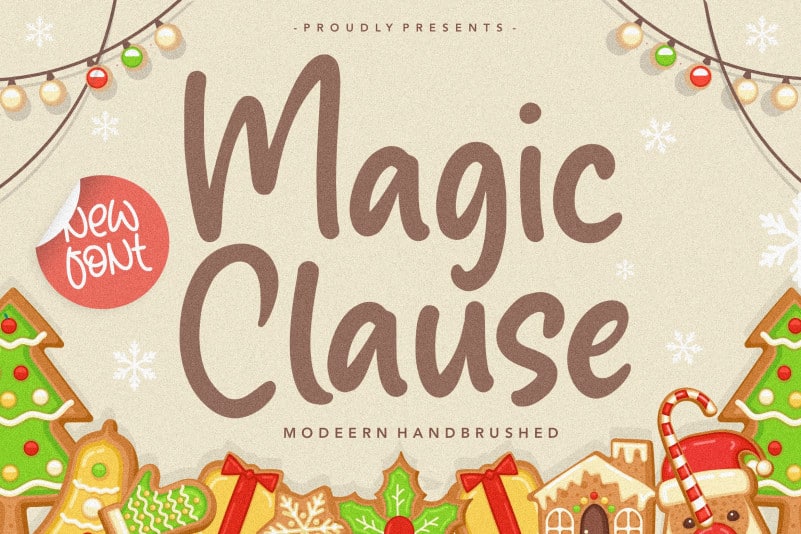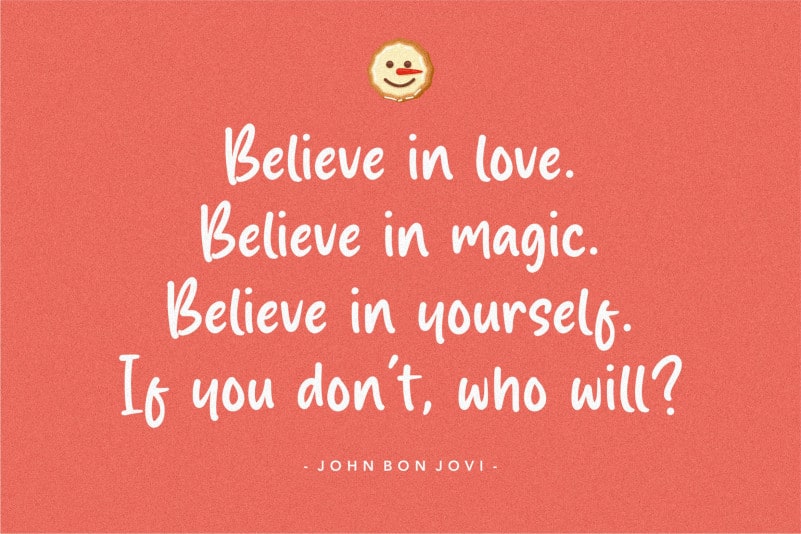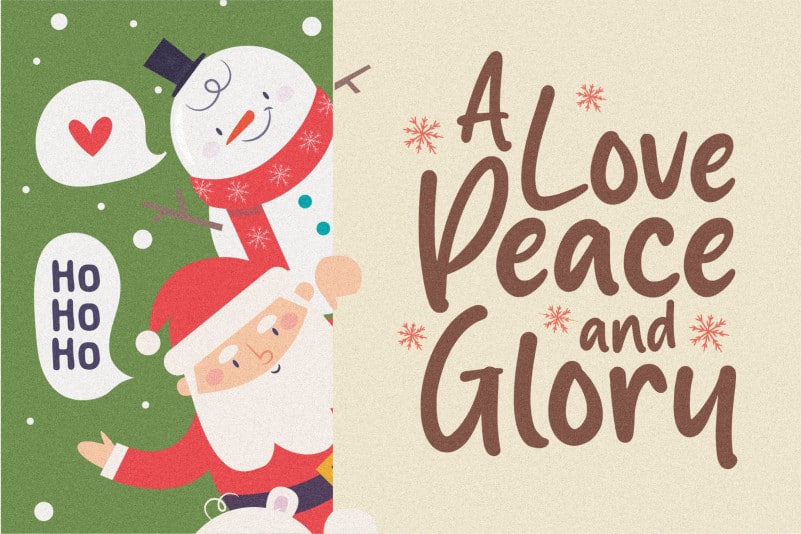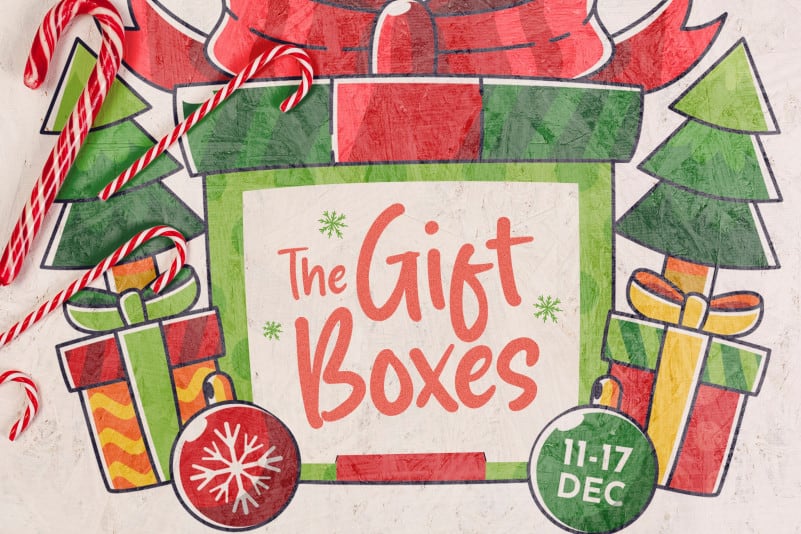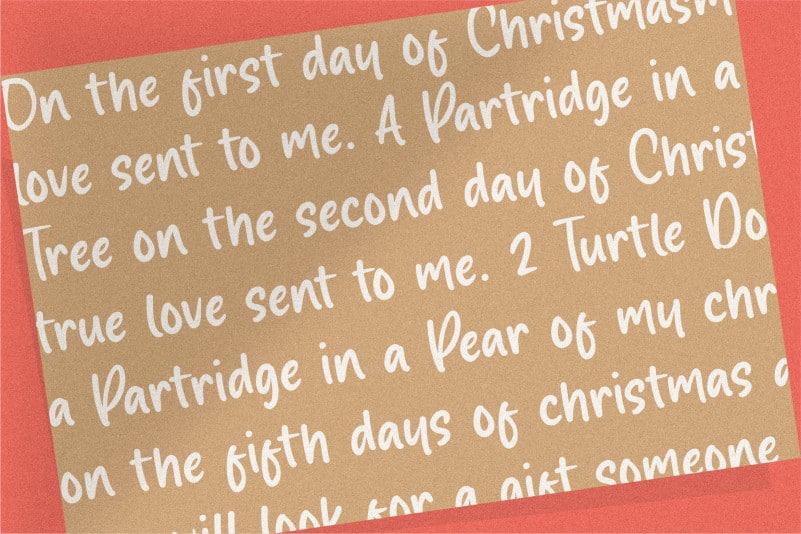
Magic Clause Modern Handbrushed Font
Proudly Present, Magic Clause Modern Handbrushed Font.
Magic Clause is a Modern Handbrushed Font.
This font is perfect for product packaging, branding project, megazine, social media, wedding, or just used to express words above the background.